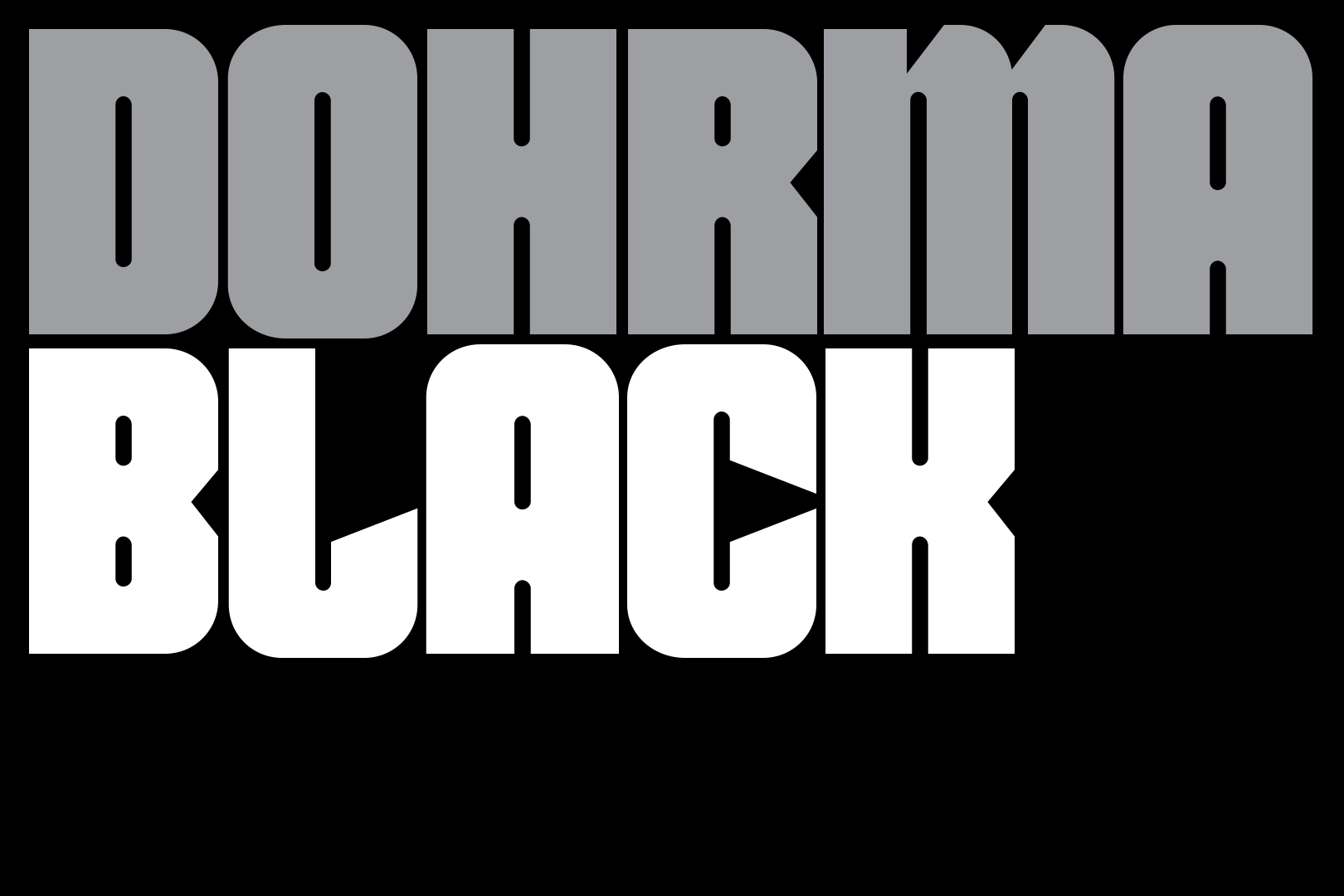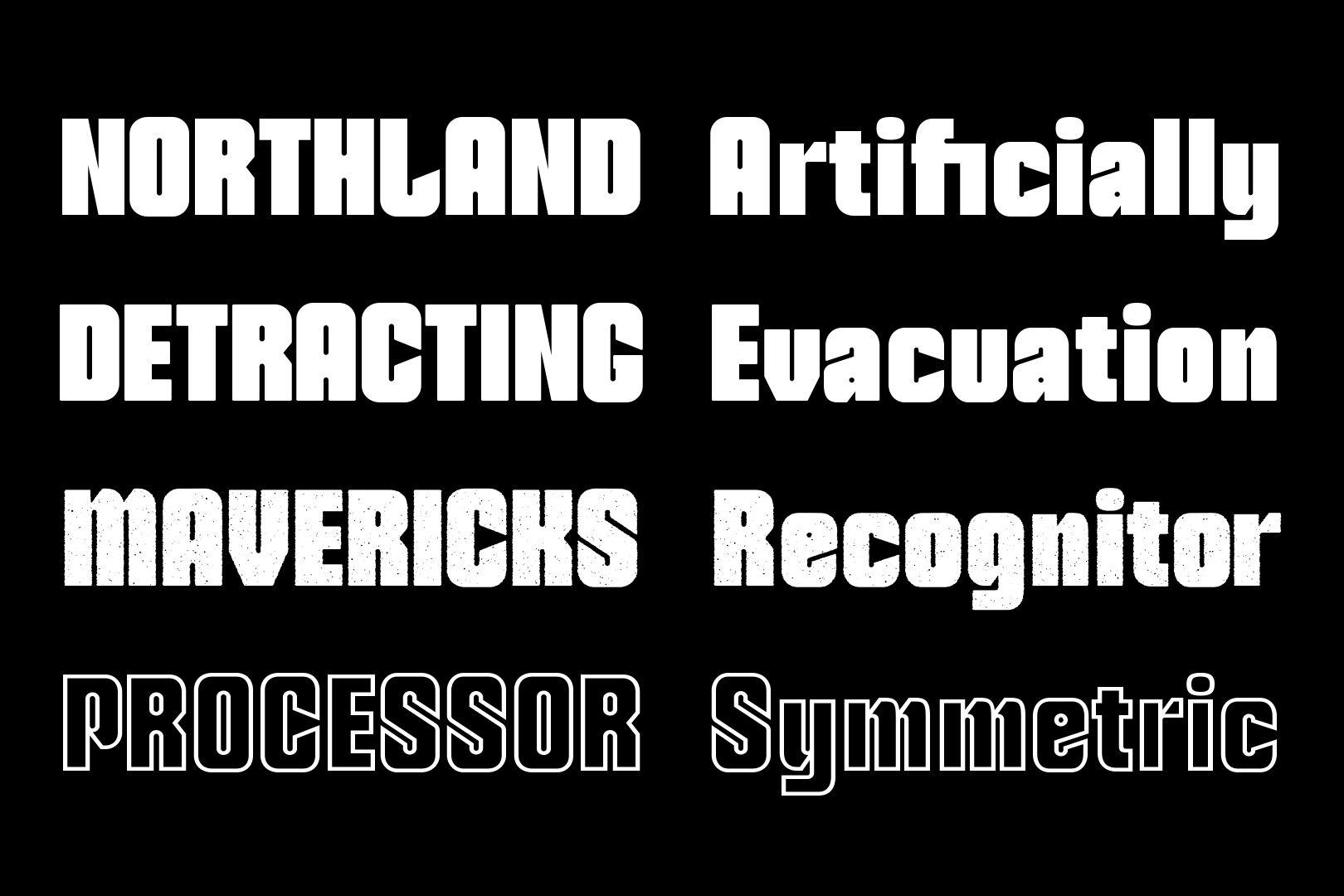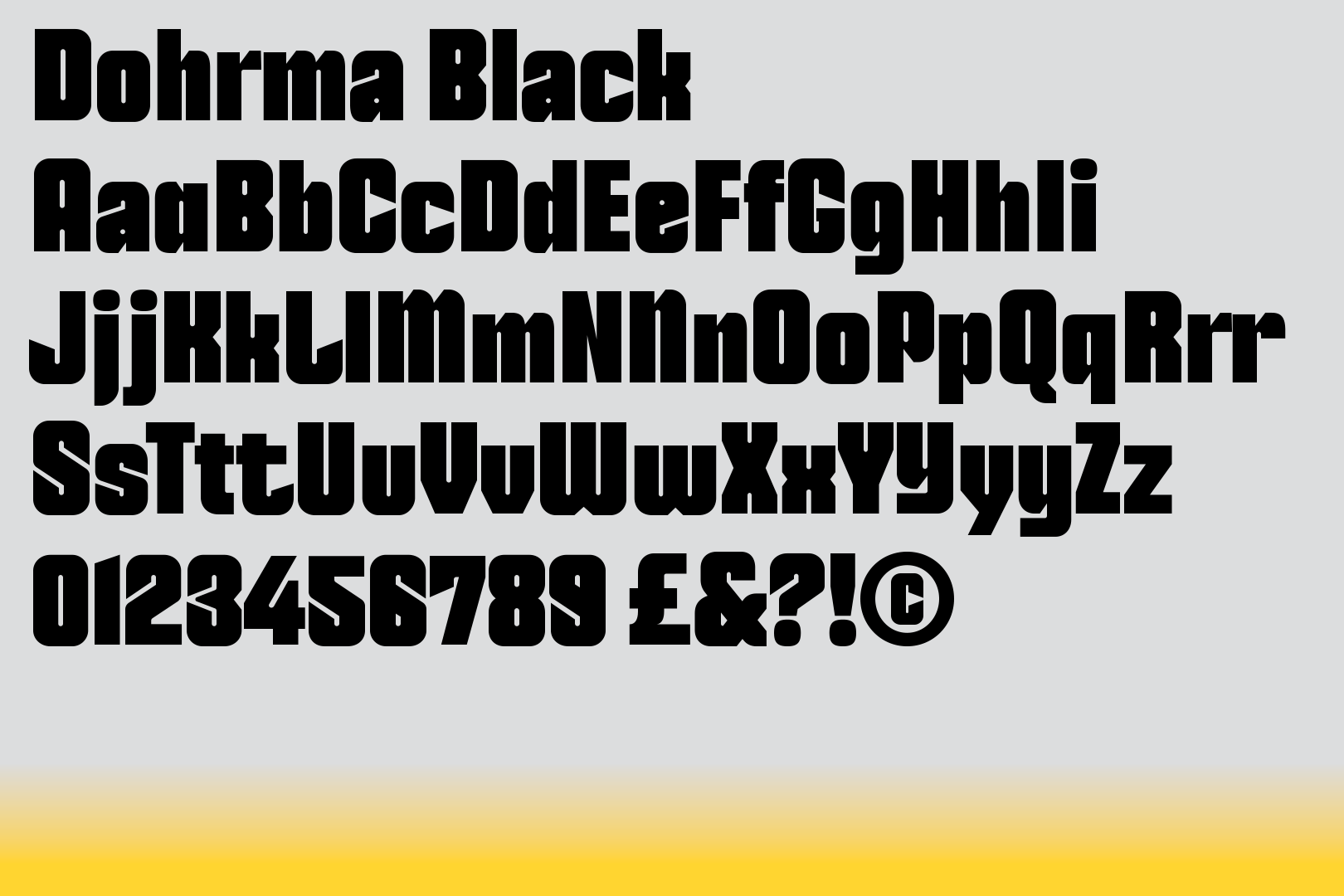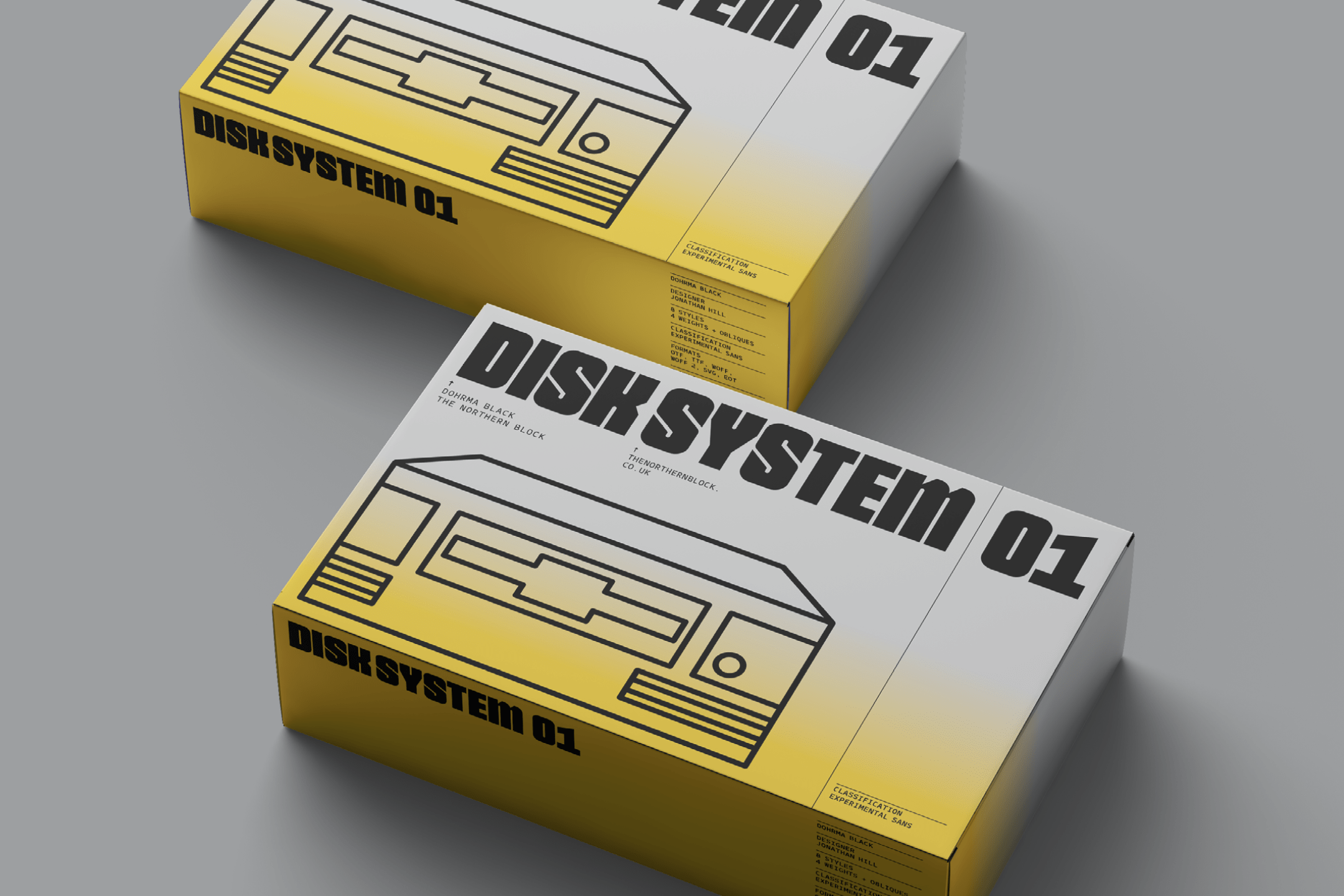
Dohrma is a modernised rendition of the classic Othello typeface, conceived by Morris Fuller Benton in 1964. Its slender and bold letterforms seamlessly marry curves with straight lines, making it a prime choice for captivating designs spanning books, packaging, posters, and film credits. This typeface is particularly suited to large display scenarios that need to grab attention. It pays tribute to the original Othello while offering a contemporary twist for design versatility.
The font includes four distinctive styles: Black, Outline, Soft, and Grit, with over 550 characters per style. OpenType features include case-sensitive forms, localised forms, standard ligatures, alternate N, Y, a, j, r, t, and y, and language support covering Western, Southern, and Central Europe.
Dohrma is a modernised rendition of the classic Othello typeface, conceived by Morris Fuller Benton in 1964. Its slender and bold letterforms seamlessly marry curves with straight lines, making it a prime choice for captivating designs spanning books, packaging, posters, and film credits. This typeface is particularly suited to large display scenarios that need to grab attention. It pays tribute to the original Othello while offering a contemporary twist for design versatility.
The font includes four distinctive styles: Black, Outline, Soft, and Grit, with over 550 characters per style. OpenType features include case-sensitive forms, localised forms, standard ligatures, alternate N, Y, a, j, r, t, and y, and language support covering Western, Southern, and Central Europe.